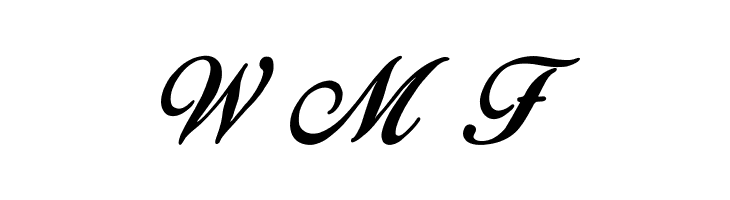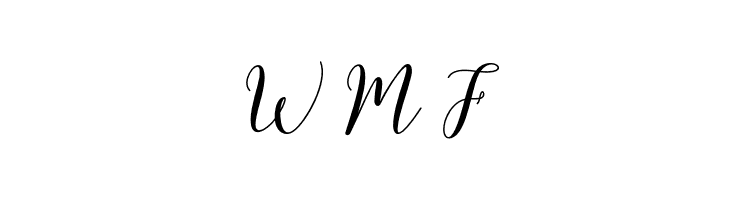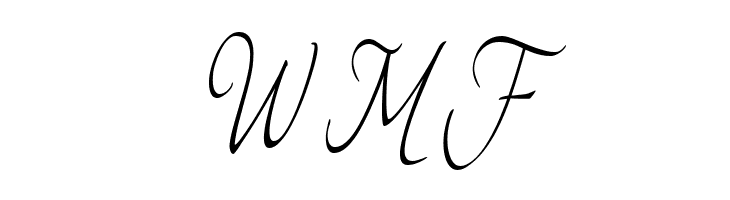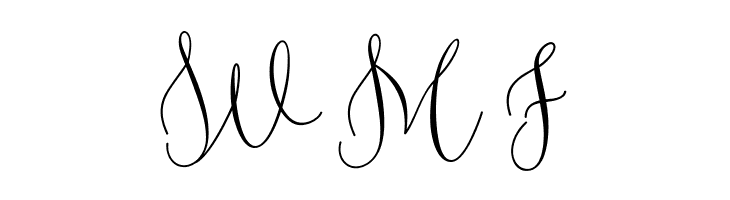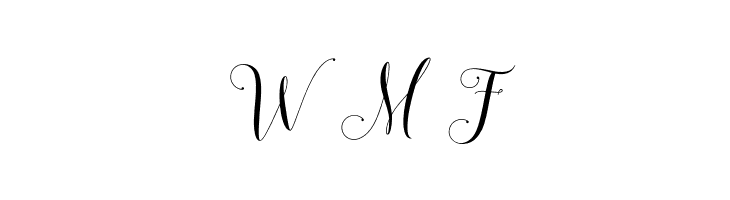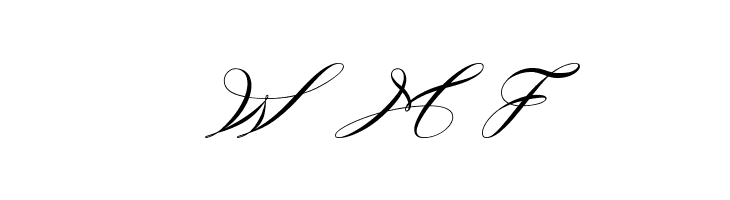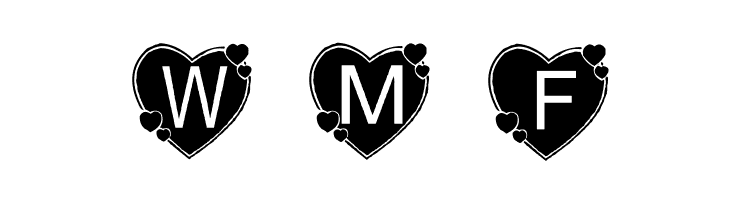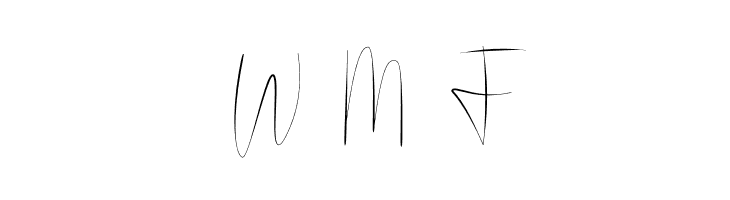
• Birds of Paradise
• kissitademo
( Fonts by Barland )
An elegant, flowing script font with medium contrast, ideal for formal and decorative uses.
• Theage
( Fonts by itypeface )
An elegant script font with flowing, cursive letterforms and a sophisticated appearance.
• RottarityFeminine
( Fonts by Siwox Core LineType )
An elegant and flowing script font with graceful curves and loops.
• YulindaScriptDemo
( Fonts by Barland )
An elegant script font with flowing, ornate characters and graceful numerals.
• SadhiraDemo
( Fonts by Barland )
An elegant script font with flowing, ornate swashes and flourishes.
• Curlings
( Fonts by Krunoslav Sokic - model850.deviantart.com - Personal-use only. For commercial use please contact owner. )
An elegant script font with intricate curls and flourishes.
• AEZbighearts
( Fonts by Adult Ramblings - Anastacia E. Zittel - Personal-use only. For commercial use please contact owner. )
A decorative font with characters encased in heart shapes, ideal for romantic themes.
• Belinda
• adalinescript